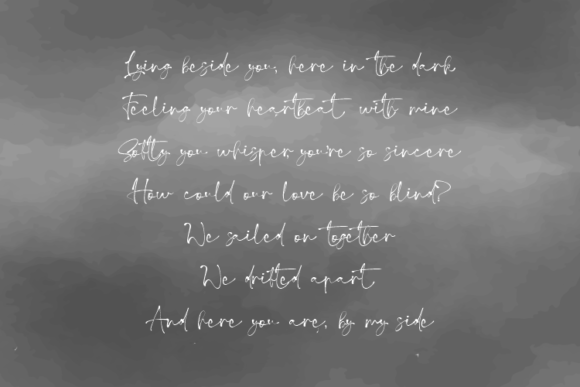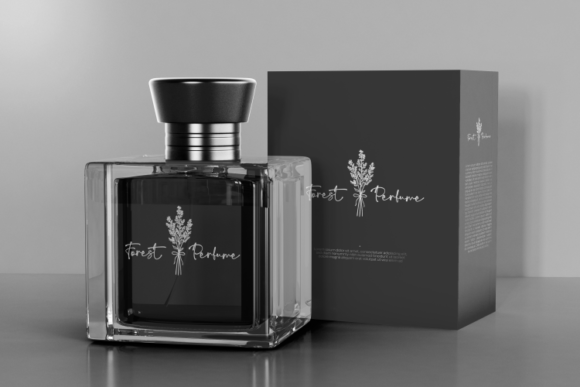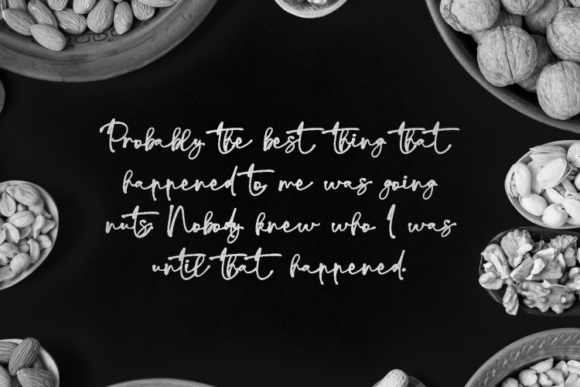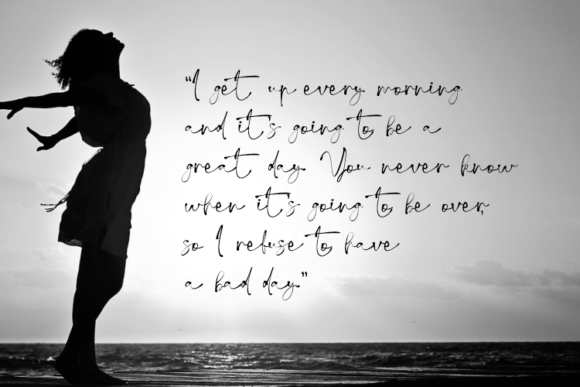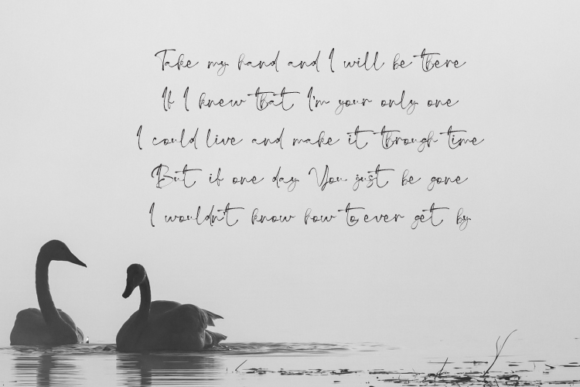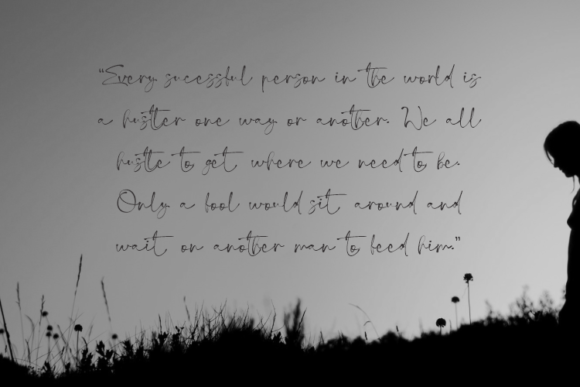
Introduction to Shinoda Font
Have you ever stumbled upon a beautiful handwritten font that instantly sparks inspiration for your next creative project? I know I have! For me, it was the moment I laid eyes on the Shinoda Font – a stunning, elegant script that added a touch of sophistication to even the most mundane designs.
As designers, we’re always on the lookout for that perfect design resource that elevates our work and sets it apart from the rest. And let me tell you, the Shinoda Font is a game-changer. With its high-quality, cursive script, it’s perfect for adding a personal touch to wedding invitations, greeting cards, and logos that require a unique and personalized style.
Key Features of Shinoda Font
- High-quality design resource for creative projects: Shinoda Font is a unique and versatile font that can add a touch of elegance to any design.
- High-resolution font: This font is designed at a high resolution, making it perfect for use in large-scale designs, such as billboards or posters.
- Unique characteristics: Shinoda Font features a unique and intricate design, making it stand out from other fonts in its category.
- Perfect for creative projects: Whether you’re working on a design project, creating a logo, or developing a brand identity, Shinoda Font is a great choice.
Honest Review: Shinoda Font
I recently stumbled upon the Shinoda Font, and I must say, it’s been a great addition to my design resources. As a designer, I’m always on the lookout for high-quality fonts that can elevate my creative projects. The Shinoda Font has been a pleasant surprise, offering a modern and sleek aesthetic that’s perfect for a variety of design applications.
What works well: ✨ The Shinoda Font is incredibly versatile, with a wide range of uses, from logos and branding to digital products and web design. The font’s clean and minimalist design makes it easy to read, even on small screens. Plus, it’s a free download, which is always a bonus!
- Transparent background option for seamless integration
- High-quality design suitable for a variety of applications
- Easy to read, even on small screens
Limitations: ⚠️ While the Shinoda Font is generally well-suited for most design projects, I did notice that it may not be the best choice for extremely formal or traditional designs. Additionally, the font’s limited character set may require some creative workarounds for more complex projects.
Overall, I’m impressed with the Shinoda Font and would definitely recommend it to fellow designers looking for a reliable and high-quality design resource. Its versatility, ease of use, and free download make it a great addition to any design toolkit.
The Shinoda Font is ideal for a variety of design projects, including logos, brochures, business cards, and social media graphics. Its high-quality design and transparent background make it a great choice for creating visually appealing designs.
Does the Shinoda Font have a transparent background?
No, the Shinoda Font is a solid font with no transparent background. However, you can use design tools like Adobe Illustrator or Sketch to create a transparent background effect around the text, allowing you to achieve a more modern and sleek design look.